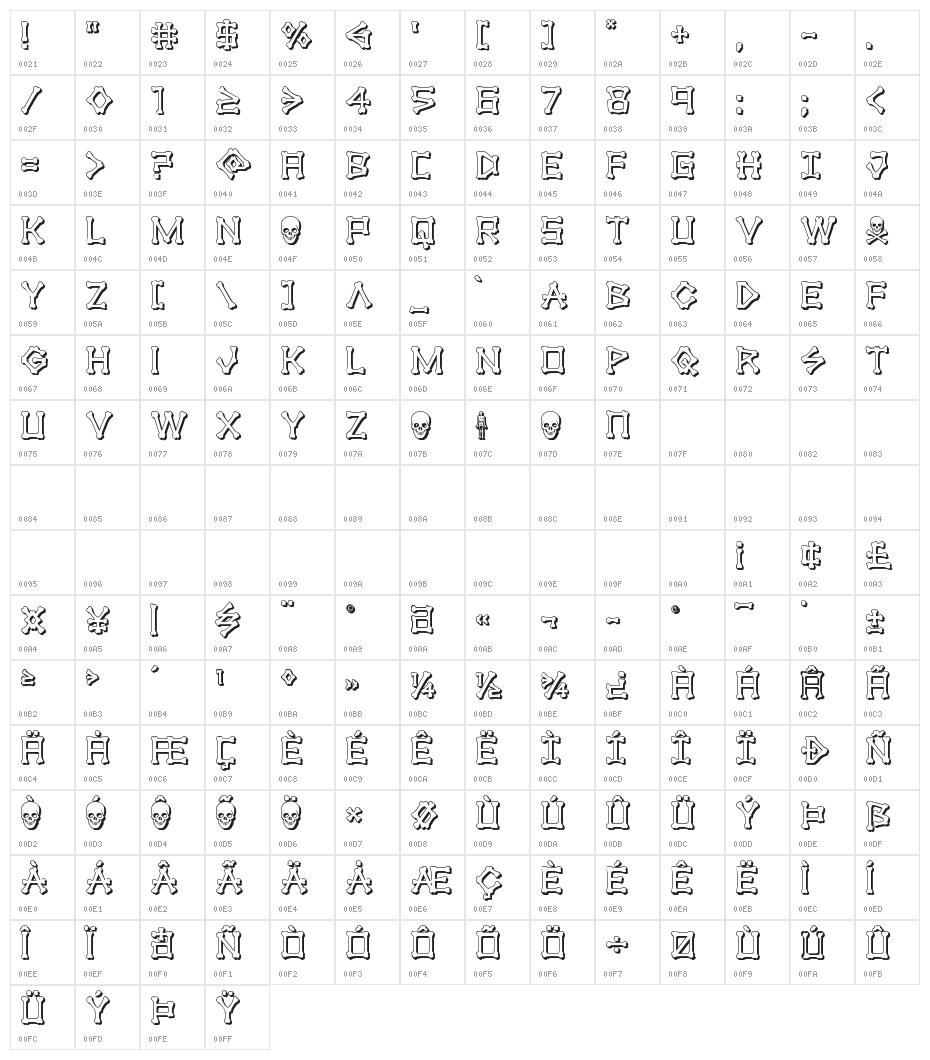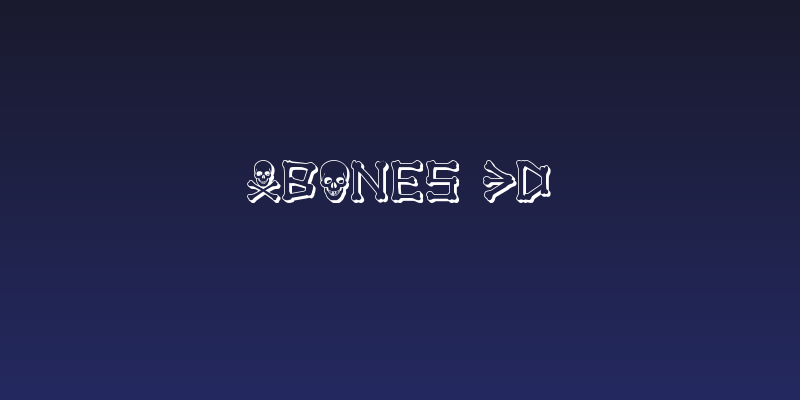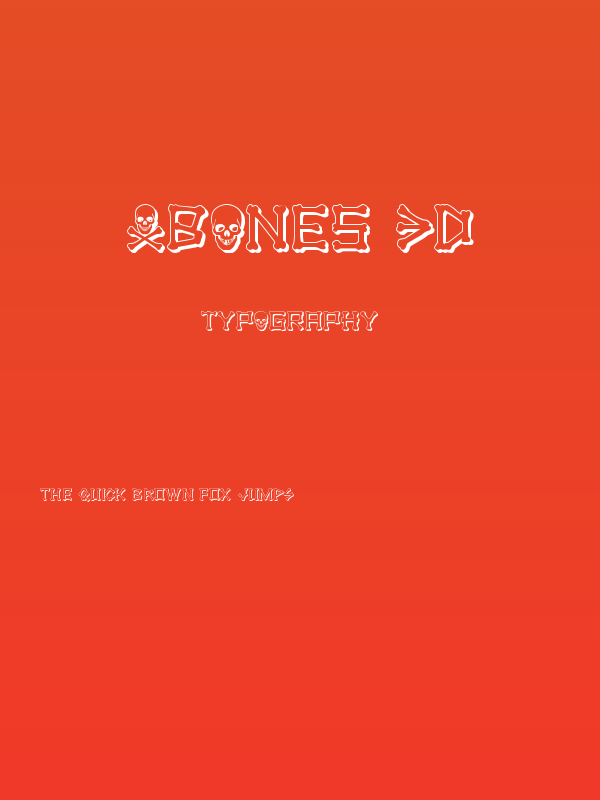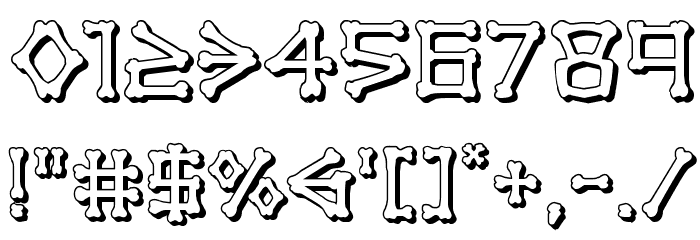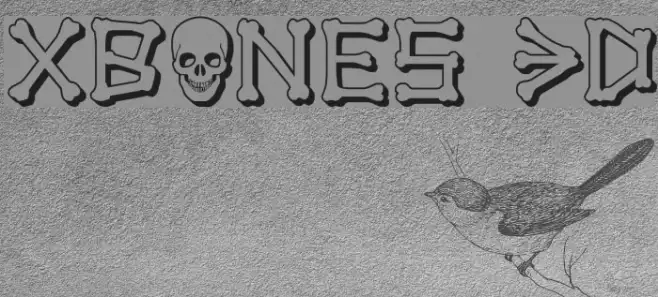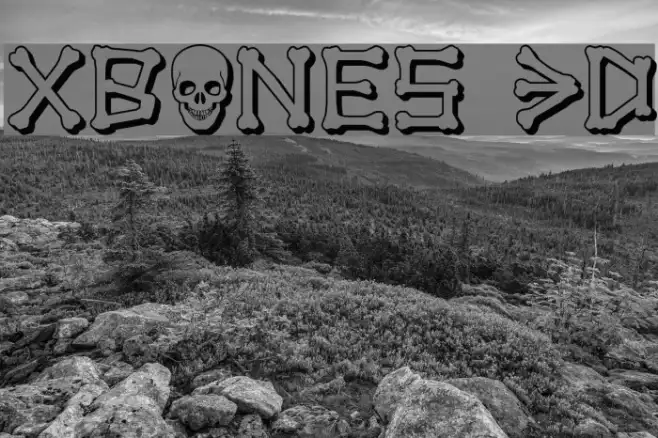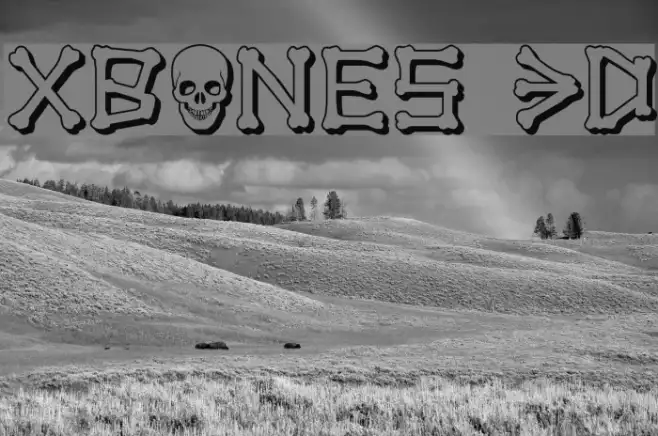
xBONES 3D Font
xBONES 3D Description
This font features a unique and playful design that mimics the appearance of bones, giving it a distinctly skeletal and spooky aesthetic. The characters are bold and outlined, with a three-dimensional effect that adds depth and intrigue. The uppercase and lowercase letters maintain a consistent style, with exaggerated curves and angles that enhance the bone-like appearance. The numbers and special characters follow the same theme, making the font cohesive and visually striking. This font is perfect for Halloween-themed projects or any design that requires a touch of the macabre.
| Proposed Projects | Halloween invitations, horror movie posters, themed party decorations, or any project needing a spooky touch. |